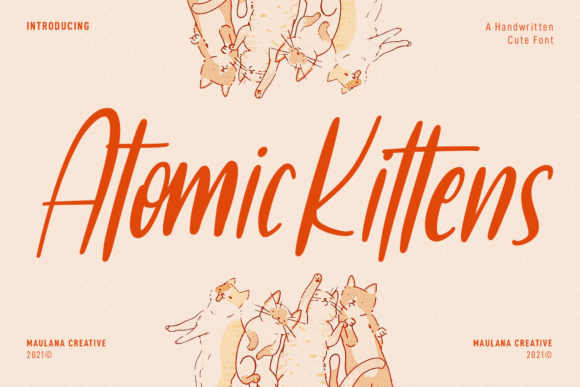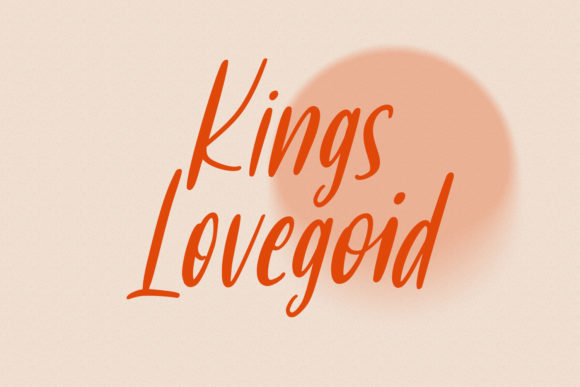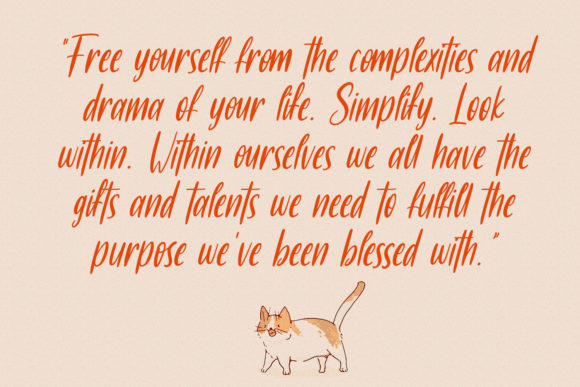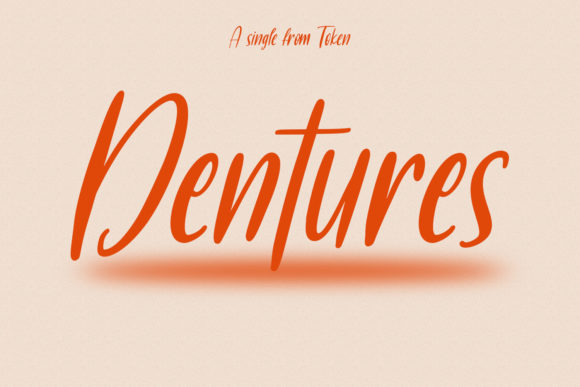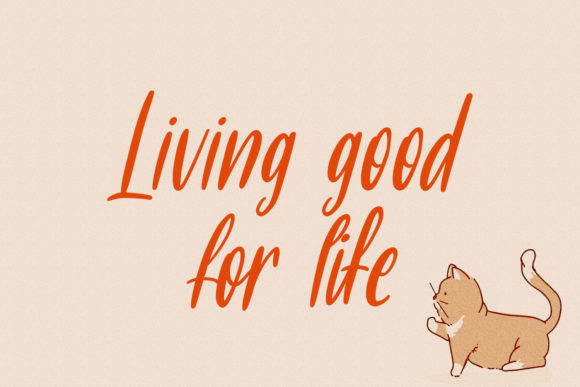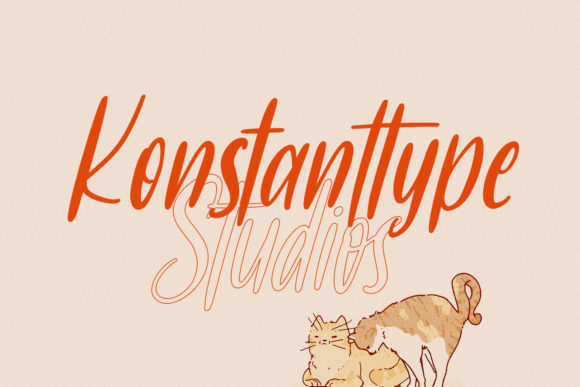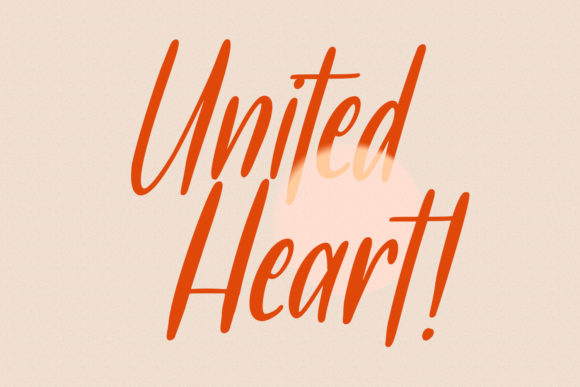
Atomic Kittens Font
About Atomic Kittens Font
Atomic Kittens is a lovely and timeless handwritten font. It is the best choice for creating eye catching logos, branding and quotes. Every letter has a unique and beautiful touch, which will make your design come alive!